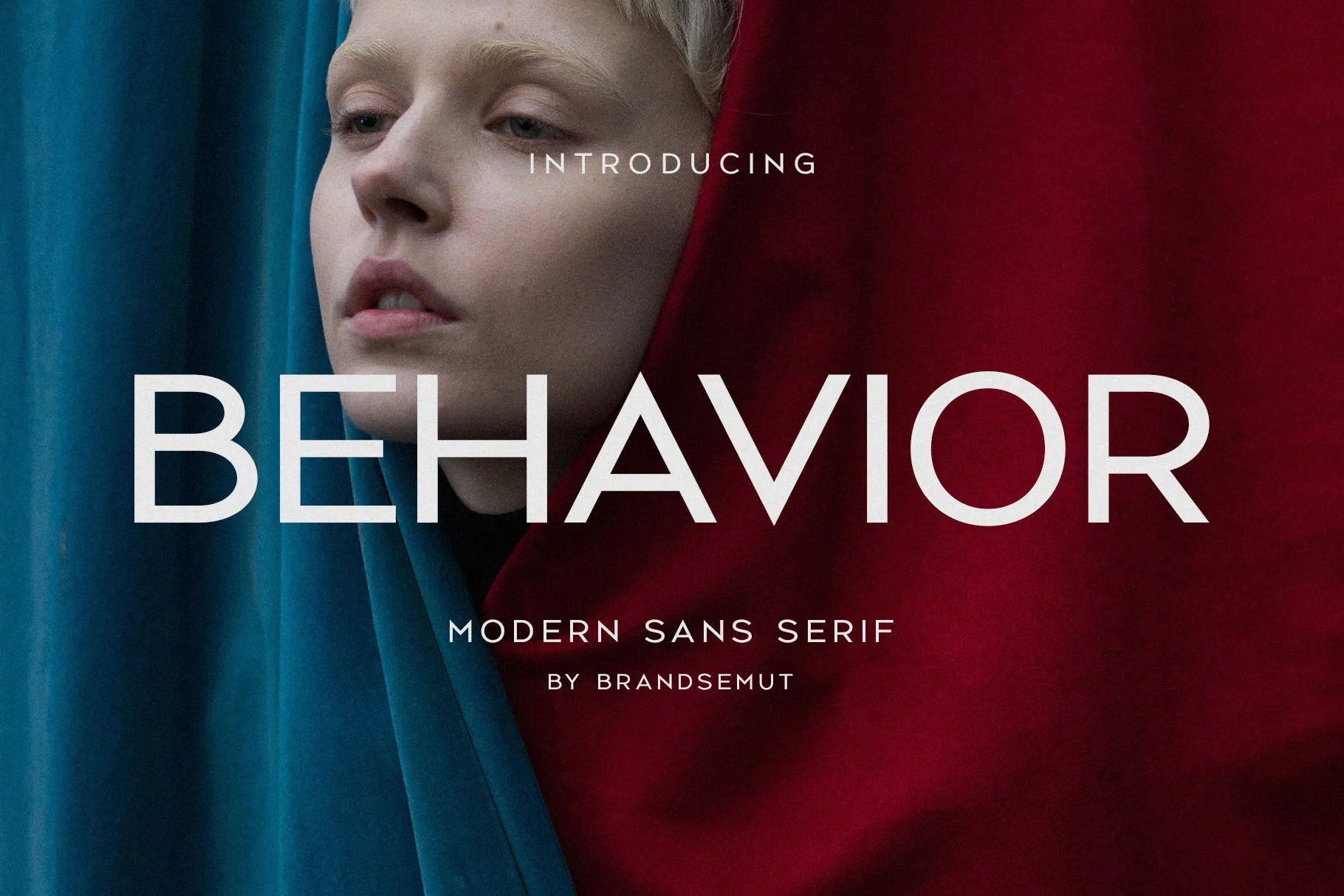
Behavior Font
Behavior is a sleek and versatile typeface designed to enhance a variety of design projects. With its modern simplicity and elegant lines, this font is perfect for creating standout headings, logos, and more.
Key Features of Behavior:
• Modern and Simple Design: Behavior offers a clean, minimalist style that works well for contemporary design needs.
• Versatile Applications: Ideal for use in headings, logos, branding, magazines, product packaging, and invitations, Behavior adapts to a wide range of creative projects.
• Elegant Touch: The smooth curves and clean lines of Behavior add a refined and sophisticated element to any design.
Ideal Uses for Behavior:
• Headings and Titles: Make your headings and titles visually striking with the modern aesthetic of Behavior.
• Branding and Logos: Enhance your branding efforts and logo designs with the font’s stylish and clean look.
• Product Packaging and Invitations: Behavior brings an extra layer of class to packaging designs and invitations, making them stand out.